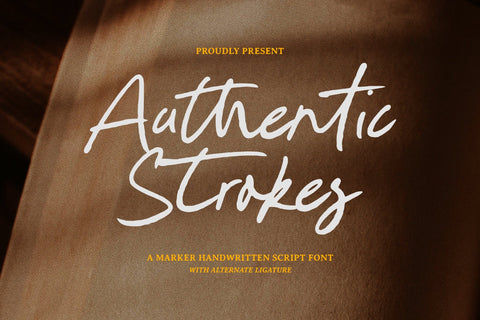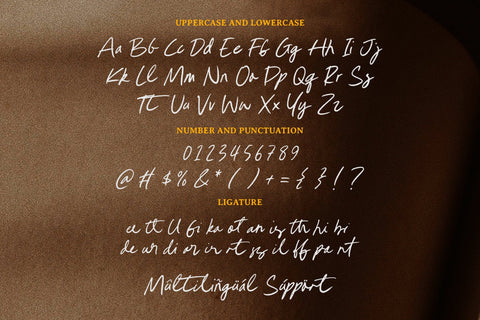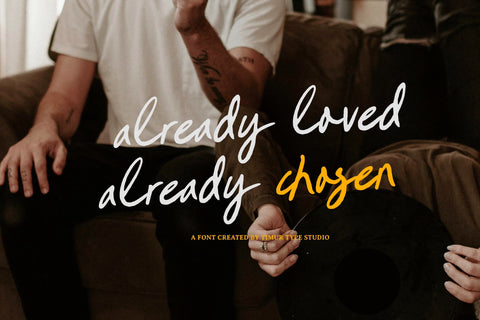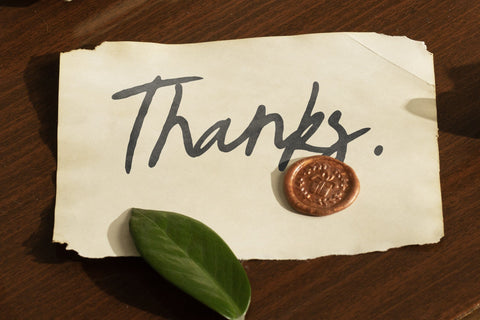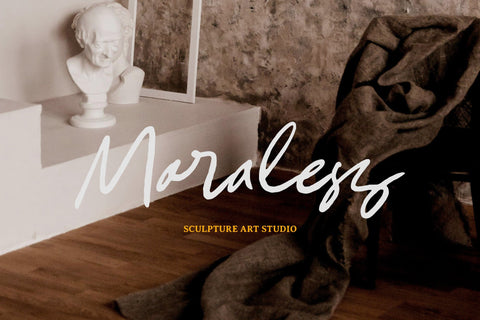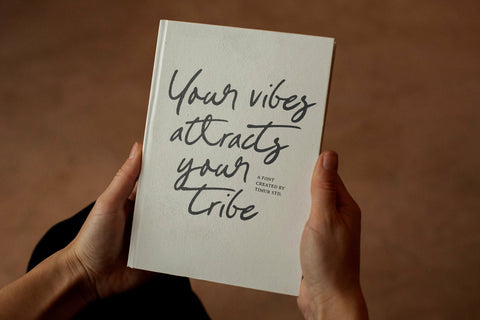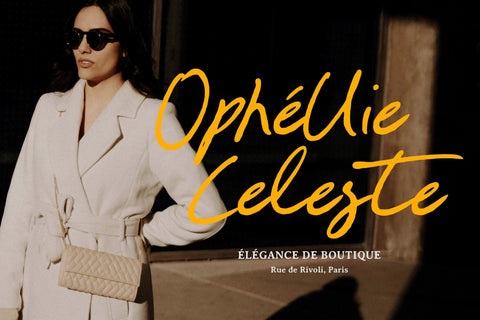
Authentic Strokes - Marker Handwritten Script Font
Authentic Strokes is a Marker Handwritten Script Font
Authentic Strokes is a lively, handwritten script font that captures the spirited energy of real marker strokes. Each character flows with natural variations in line weight and texture, evoking the spontaneity and warmth of hand‑drawn lettering. With smooth connections, subtle imperfections, and optional swashes or ligatures, it delivers an organic, human touch—perfect for branding, social media graphics, packaging, and anywhere a handcrafted vibe matters.
Authentic Strokes Font also supports multilingualism